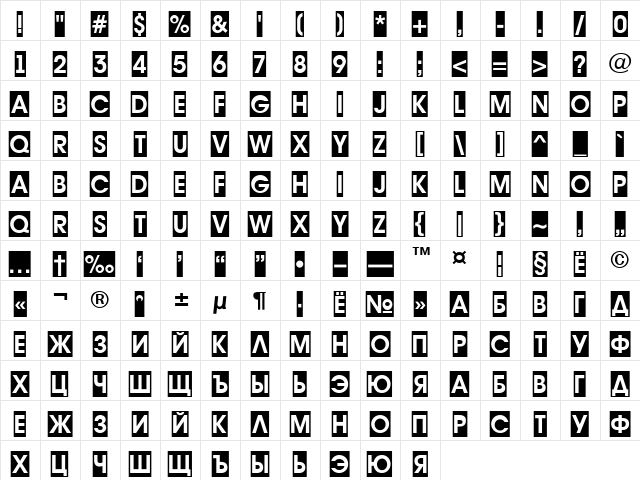
a_AvanteTitulCm Bold Font Preview
a_AvanteTitulCm Bold
Design Context for a_AvanteTitulCm Typeface
a_AvanteTitulCm offers clean, dependable letterforms without strong stylistic allegiance, making it a practical choice for designers who need flexibility. Its bold stroke weight gives it real presence on the page.